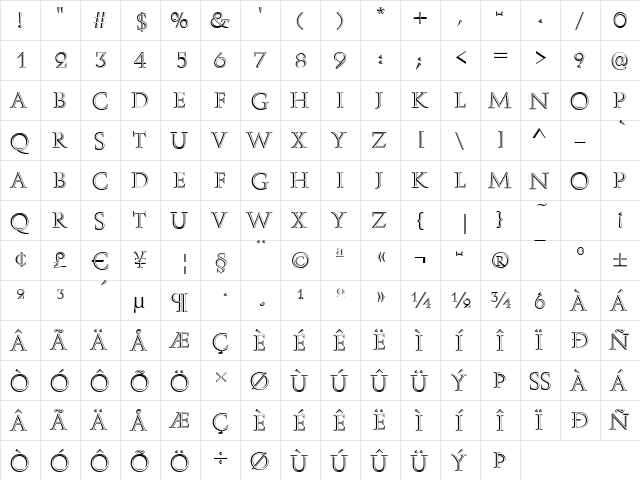
Openface Regular
Design Context for Openface Typeface
Openface takes a measured approach to typography — its balanced proportions and neutral character make it a reliable workhorse for both digital and print work.